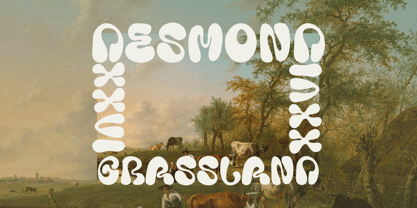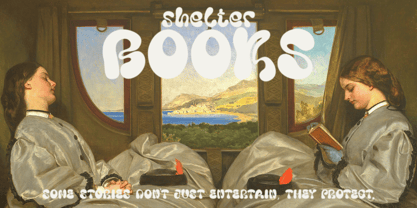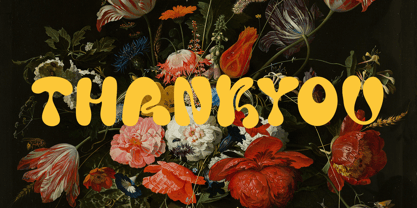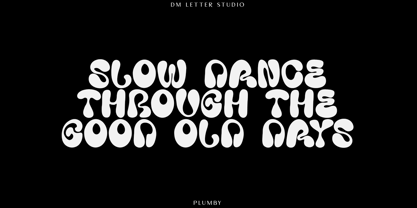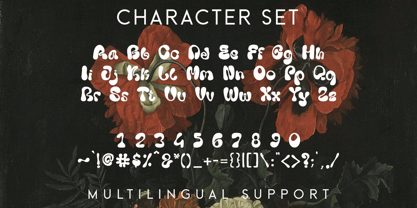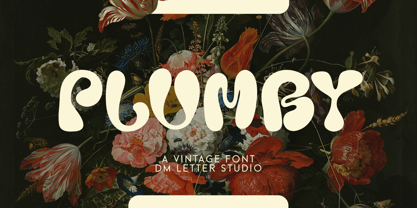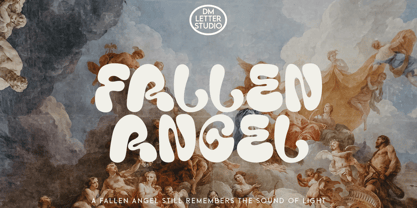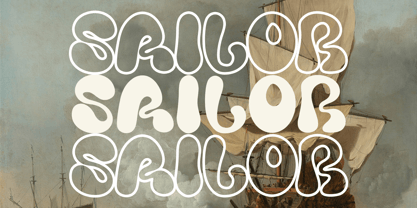
Plumby Vintage
by DM Studio
The Plumby Vintage Font Family was designed by Dimas Prasetyo and published by DM Studio. Plumby Vintage contains 1 styles.
Meet Plumby, the Vintage Font Plumby is a vintage display font with a warm retro vibe and bold letter shapes that feel nostalgic and confident. The curves are smooth and the forms stay readable, so it looks great on both small labels and big headlines. Because the silhouettes are strong, Plumby holds up beautifully in print and on screen. Use it for retro logos, café menus, product labels, poster titles, packaging, apparel, stickers, and social media graphics. As a result, your designs get that classic throwback charm in seconds. Why Plumby Vintage Font sells First, it’s easy to install and quick to use in Canva, Photoshop, Illustrator, and most design apps. Next, the bold outlines print cleanly and cut well for vinyl, laser, and sticker projects. Then your layouts come together faster because the letter shapes feel balanced and consistent. Moreover, Plumby pairs nicely with a simple sans or a clean serif, so you can build full brand sets without overthinking it. Therefore, it’s a solid choice for retro-themed collections and timeless product designs. Fast layouts with the Plumby Vintage Font Start with a short headline and keep it bold. After that, add supporting text in a simple font to keep everything readable. Because Plumby has strong shapes, it works well for badges, arches, and stacked layouts. In addition, it shines on curved labels, sign-style frames, and vintage stamp shapes, so you can build a full label set quickly. Finally, try palette pairs like cream & cocoa, mustard & navy, cherry & off-white, or sage & charcoal to lock in the retro mood. Creative uses and quick wins Retro logo marks, brand badges, and café signs Product labels for coffee, soap, candles, and snacks Poster titles, event flyers, and menu headers T-shirts, stickers, mugs, and tote designs Design tips for Plumby Vintage Font Keep phrases short so the vintage personality stays strong. Also, add a thin outline or a subtle shadow to boost contrast on busy backgrounds. For a real retro finish, try paper textures, halftone dots, or a soft grain overlay. Finally, export at 300 DPI for print and at 2× size for web so edges stay crisp everywhere.
Designers: Dimas Prasetyo
Publisher: DM Studio
Foundry: DM Studio
About DM Studio